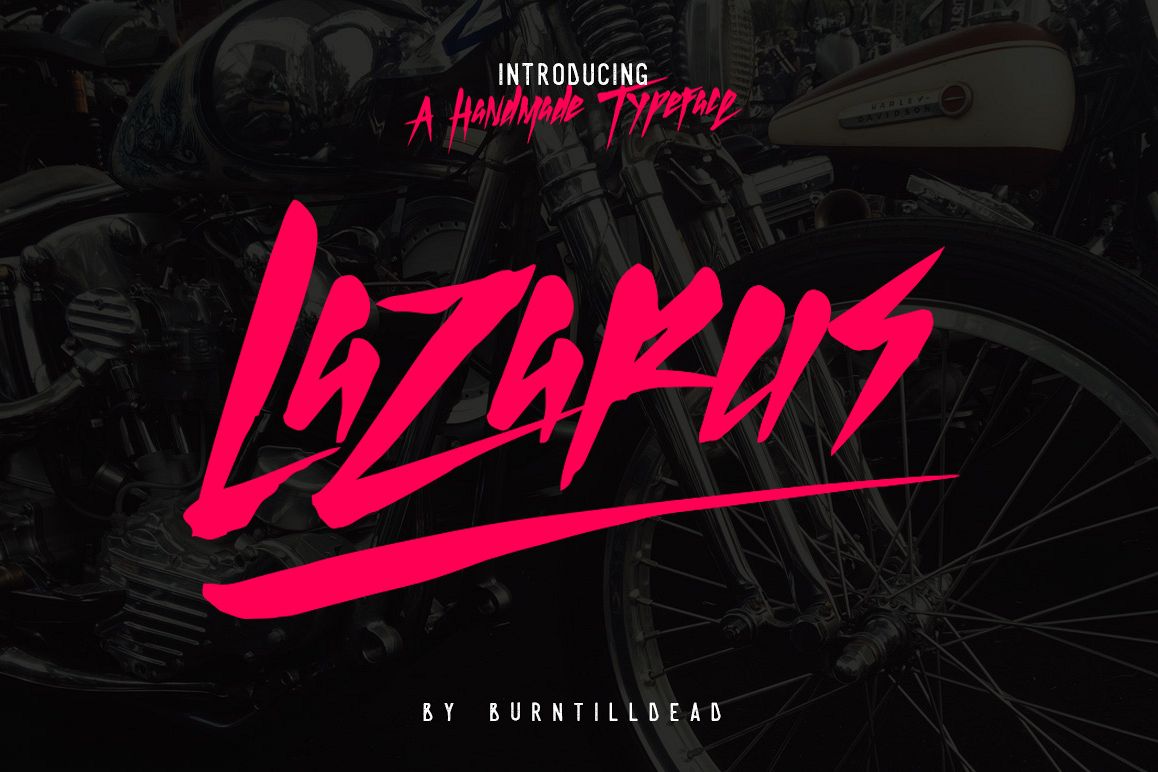
Say Hi To Lazarus!!! A Hand drawn type face. signature-style font designed, stylish lettering quickly & easily.
What's the sory behind? It's been a few years since my first Illustration been use for music industries, factor, and brands. There's a couple biggest name on my list, let's say Falling in Reverse, Alice Cooper, Gratefull Dead, Bad Religion, ect. Sometimes They more prefer to use stylish lettering as Alternate Logo. Start from there, I've been developed some Signature Style font that can use easily, so here's one of them...